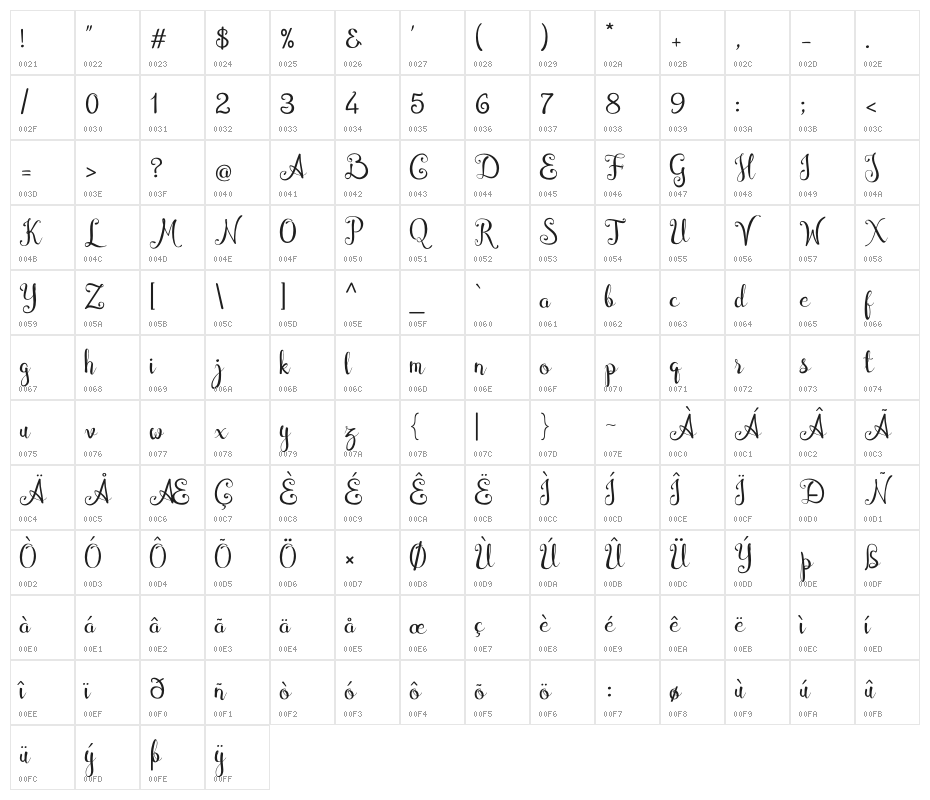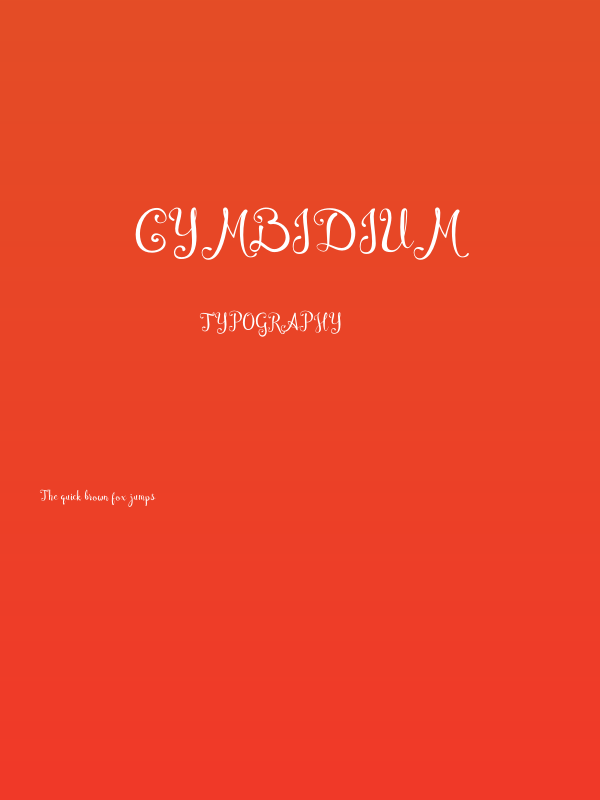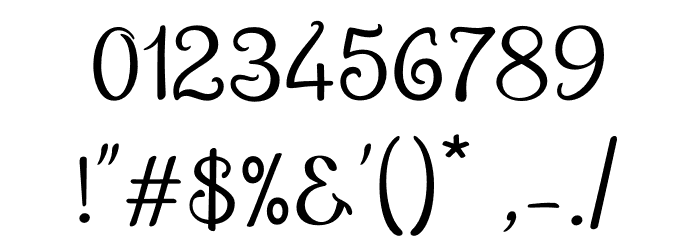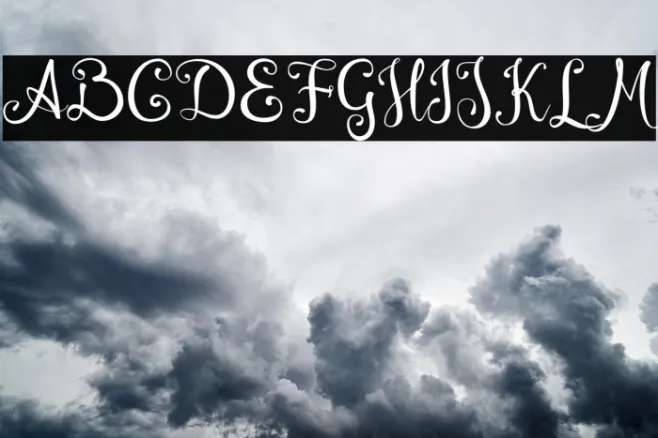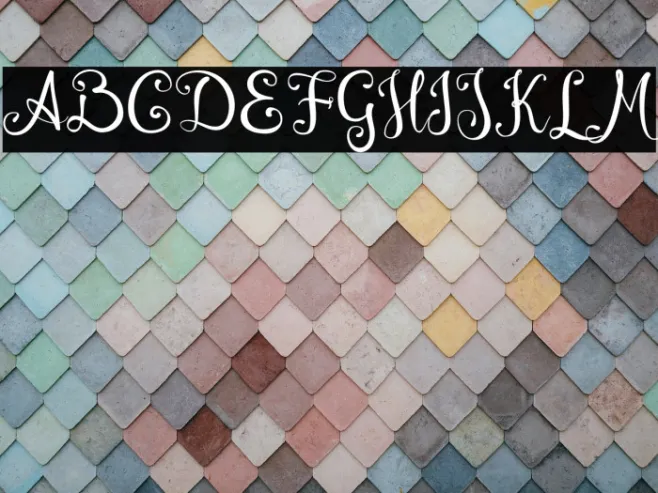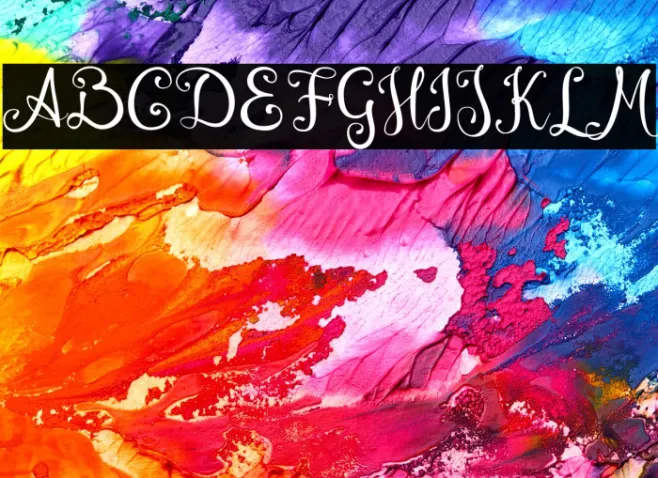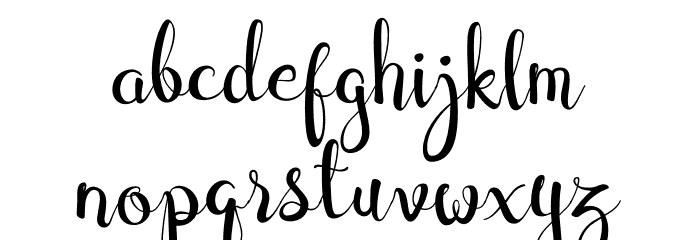
Cymbidium Font
Cymbidium Description
This font features an elegant and whimsical script style with a playful and decorative flair. The uppercase letters are characterized by intricate loops and swirls, giving them a sophisticated yet approachable appearance. The lowercase letters maintain a consistent flow, with some letters extending below the baseline, adding to the font's charm. The numerals are distinct and easy to read, while the special characters complement the overall design with their unique curves and embellishments. This font is perfect for projects that require a touch of elegance and creativity.
| Proposed Projects | Ideal for wedding invitations, greeting cards, branding, and decorative posters. |